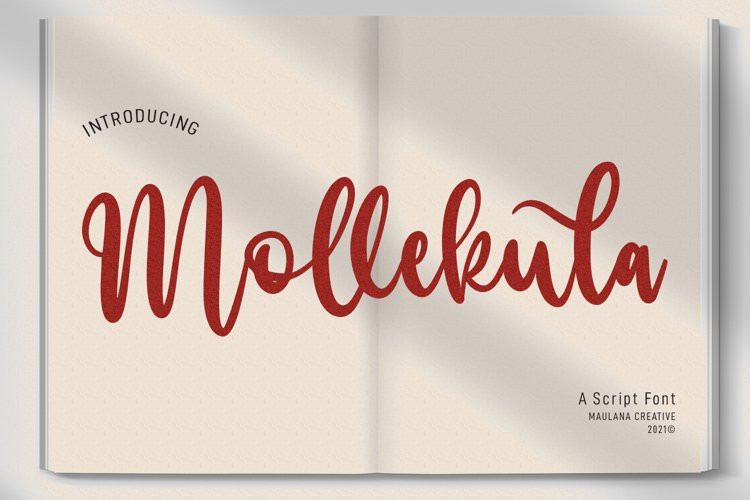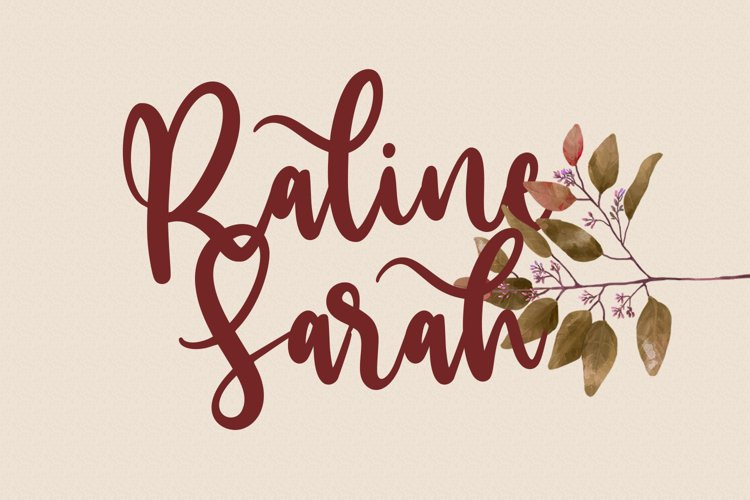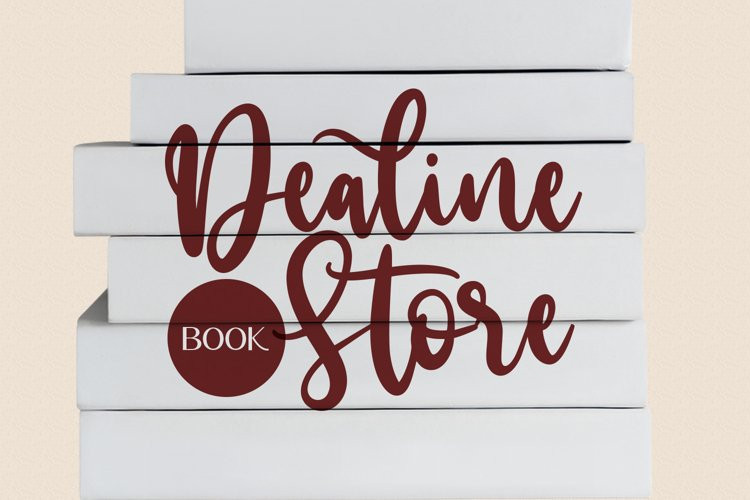
Mollekula Font
Mollekula is a Handwritten Script font. With Bold Contrast stroke, fun character with a bit of ligatures and lowercase alternatives. To give you an extra creative work. Mollekula font support multilingual more than 100+ language. This font is good for logo design, Social media, Movie Titles, Books Titles, a short text even a long text letter and good for your secondary text font with sans or serif. Make a stunning work with Mollekula font.